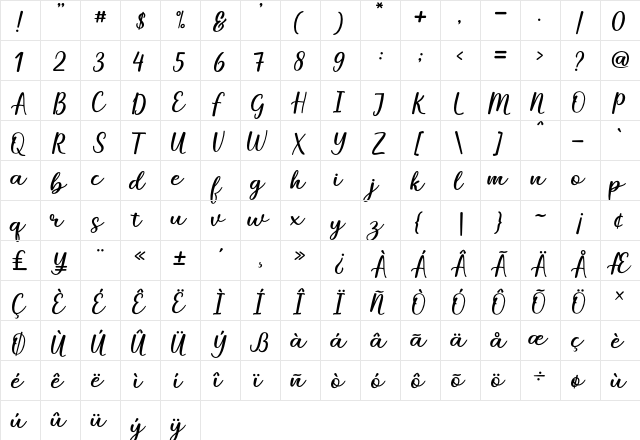
Mareline Script Regular
Regular · Mega Type Mega Type ·
Foundry Mega Type
DesignerMega Type
Design Context for Mareline Script Typeface
Mareline Script brings a calligraphic fluidity to the page — its connecting strokes and expressive curves give it an unmistakably human quality.
Font Pairing: Combine Mareline Script with a simple geometric sans for maximum contrast — the tension between flowing curves and clean structure is a classic typographic pairing.
Pro Tip: Use Mareline Script for short runs of text — names, titles, or taglines. Extended body copy in script faces tires the eye quickly.